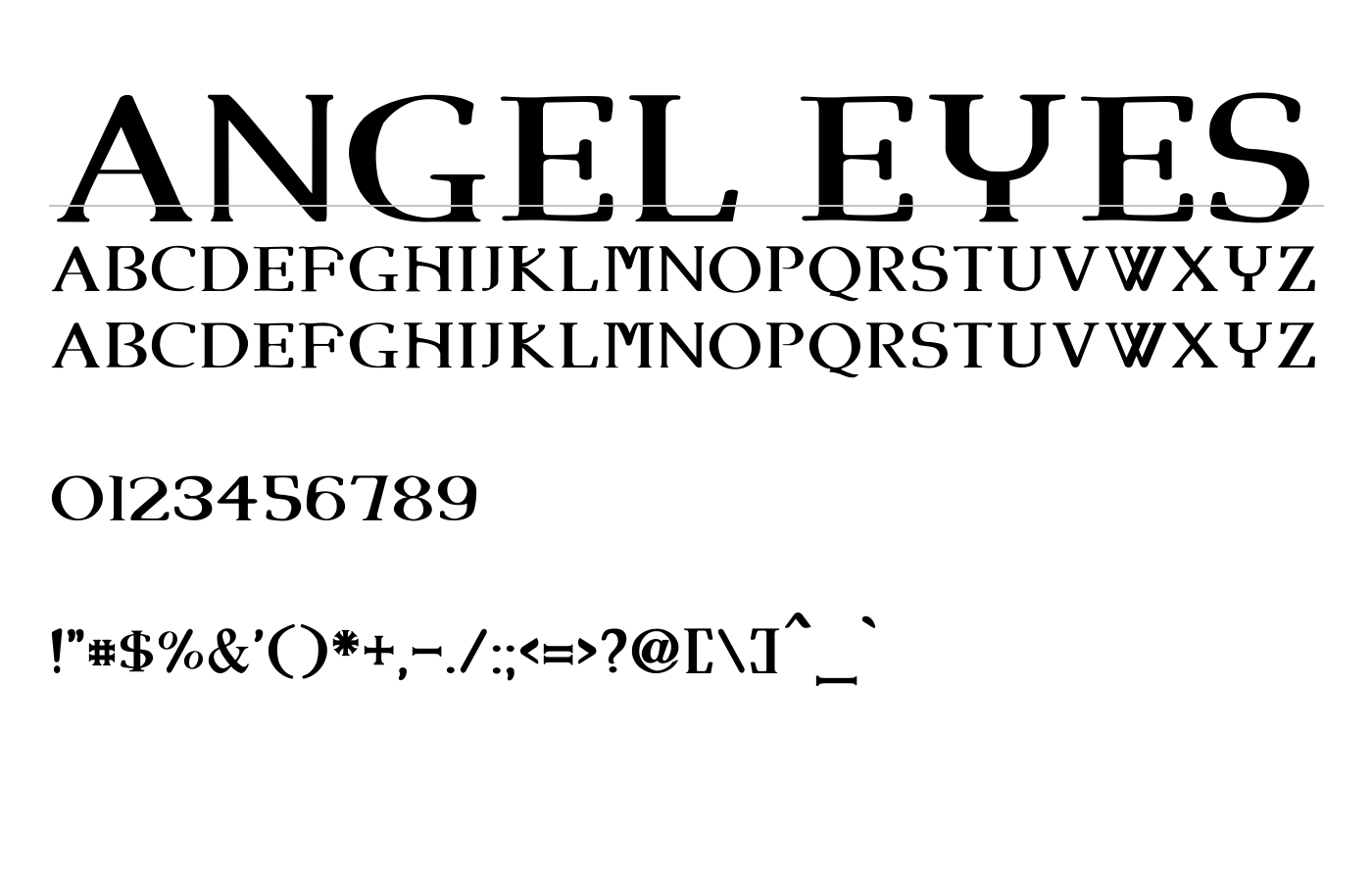
Angel Eyes is a refined serif font with a classic yet distinctive character, featuring medium contrast in strokes and slightly condensed letterforms that give it a sophisticated and elegant feel. Its sharp, bracketed serifs and unique letter details make it ideal for luxury branding, editorial headlines, and stylish packaging where a timeless, upscale impression is desired. This font works well in contexts that require a blend of tradition and subtle uniqueness, making text both readable and visually captivating.
Angel Eyes Font
About Angel Eyes Font